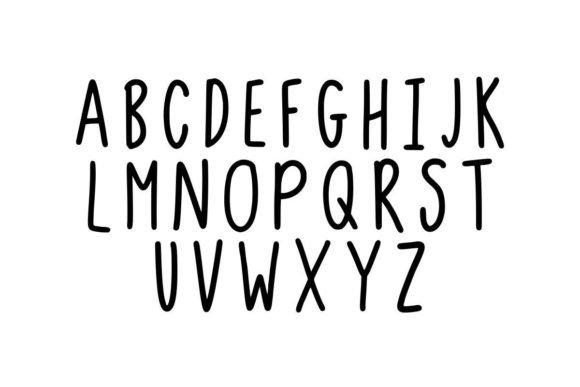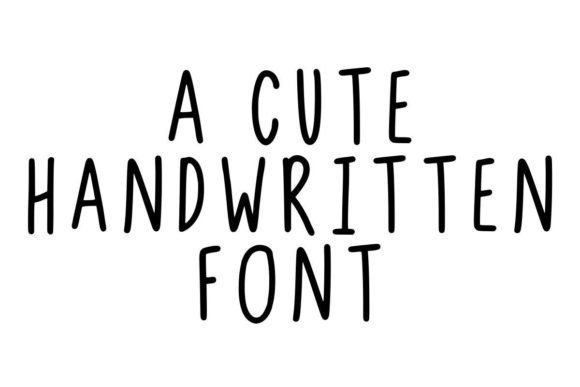
Introduction to Narrow Planner Font
Do you ever find yourself pouring your heart and soul into a creative project, only to be halted by the perfect font to match your vision? I know I do. It’s those moments of frustration that make us appreciate the little things, like stumbling upon a beautifully crafted font that completes our design. For me, that moment came when I discovered the Narrow Planner Font.
This charming, hand-drawn font has taken the design world by storm, and it’s easy to see why. With its narrow lines and high-quality design, it’s the perfect addition to any creative project. Whether you’re planning a social media post, designing a notebook cover, or working on a freelance project, the Narrow Planner Font is a valuable resource that’s sure to elevate your work.
As a design enthusiast, I’m excited to dive deeper into the world of Narrow Planner Font and explore its many uses, from free downloads to high-quality design resources. So, let’s get started and discover the magic of this trendy font together.
Narrow Planner Font
- High-quality design resource ideal for creative projects and planners.
- Features a unique, narrow design with a transparent background, allowing for easy customization.
- Perfect for use in digital planners, journals, and other creative projects where space is limited.
Honest Review: Narrow Planner Font
I recently stumbled upon the Narrow Planner Font, and I must say it’s been a game-changer for my creative projects. As a designer, I’m always on the lookout for high-quality design resources that can help me create unique and engaging content.
The Narrow Planner Font is a free download that offers a sleek and modern aesthetic, making it perfect for planners, journals, and any other creative project that requires a touch of sophistication. One of the standout features of this font is its transparent background, which allows for seamless integration with any background image or color.
Here are some things that work well with the Narrow Planner Font:
- ✨ Sleek and modern aesthetic
As with any font, there are some limitations to consider:
- ⚠️ Limited character set, which may not be suitable for extended text
- ⚠️ May not be as versatile as other fonts in terms of style and versatility
Overall, I’m impressed with the Narrow Planner Font and would highly recommend it for any creative project that requires a touch of elegance and sophistication. Its high-quality design and transparent background make it a valuable addition to any designer’s toolkit.
Narrow Planner Font
What is Narrow Planner Font?
Narrow Planner Font is a high-quality design resource ideal for creative projects. This font is perfect for those who need a sleek and modern look for their designs.
Tips for Getting the Most Out of Narrow Planner Font
To get the most out of Narrow Planner Font, use it in conjunction with other design elements to create a visually appealing design. Experiment with different font sizes and colors to find the perfect balance.
Common Use Cases for Narrow Planner Font
Narrow Planner Font is commonly used in digital design, including:
- Blog posts and articles
Narrow Planner Font Alternatives
Compared to Narrow Planner Font, Alex Brush Font has a more refined and cursive feel, making it suitable for projects that require a more artistic approach. While Narrow Planner Font is great for everyday planning and organization, Alex Brush Font is better suited for special occasions and events.
The Great Vibes Font is a modern, stylish font that’s perfect for designers looking for a free download to add a touch of sophistication to their creative projects. It’s ideal for use in logos, business cards, and other design elements where a high-quality font is required.
Is the Narrow Planner Font suitable for large-scale designs?
The Narrow Planner Font is designed to be versatile and scalable, making it suitable for a wide range of creative projects, from small designs to large-scale applications. Its high-quality design ensures crisp and clear typography, even at large sizes.